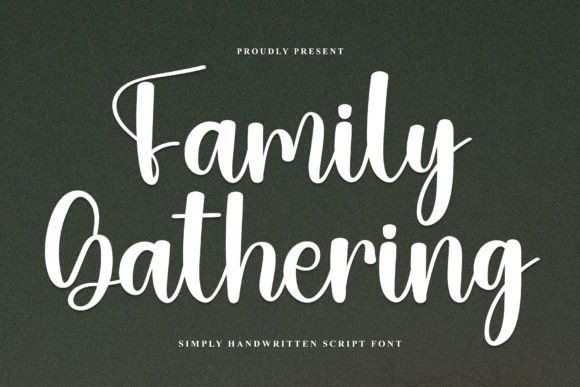
Dive into the world of exquisite penmanship with Family Gathering Font, a captivating script font family that will transform your creative projects into breathtaking masterpieces. Designed by the talented Inermedia STUDIO, this font exudes a casual yet elegant charm, making it the perfect choice for crafting heartfelt and memorable wedding cards that capture the essence of your special day.
As you embark on this typographic journey, you'll discover a font that is both versatile and visually stunning. Its beautifully flowing characters, reminiscent of skillful calligraphy, effortlessly evoke a sense of timeless sophistication and romance. Whether you're a seasoned designer or a novice just starting out, Family Gathering Font will guide you towards effortless creativity, helping you produce designs that resonate with your audience.
With Family Gathering Font, you'll find endless possibilities for expressing your individuality and style. Create eye-catching social media posts that captivate your followers, design stationery art that leaves a lasting impression, and craft wedding invitations that are as unique and special as the bond you celebrate. The possibilities are truly limitless, as this font effortlessly complements a wide range of projects, from playful and whimsical to formal and elegant.
Indulge in the beauty of Family Gathering Font and watch your creative vision come to life. Its intuitive design and user-friendly nature make it a joy to work with, ensuring that your creative process is as seamless and enjoyable as the final product itself. So, let the ink flow and allow Family Gathering Font to take your designs to new heights of artistry and sophistication.